Found Type: Speedball Practice Sheet
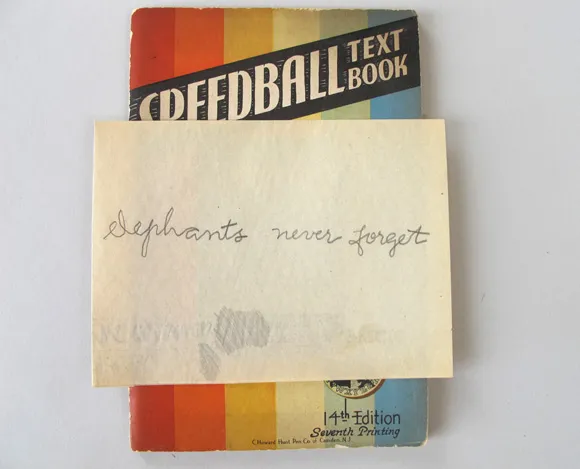
When buying used books, sometimes a glimpse of the previous owner comes with them. Inside our copy of “Lettering Poster Design For Pen And Brush” by Ross F. George, copyright 1941, is a very lightly used lettering practice sheet.
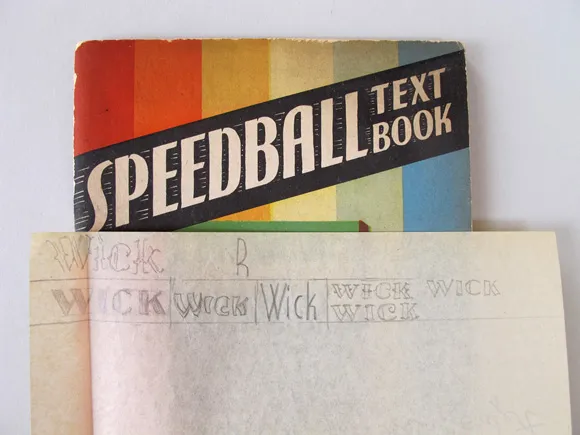
On the opposite side of same sheet are several variations on the wordmark “Wick”. The previous owner’s last name?